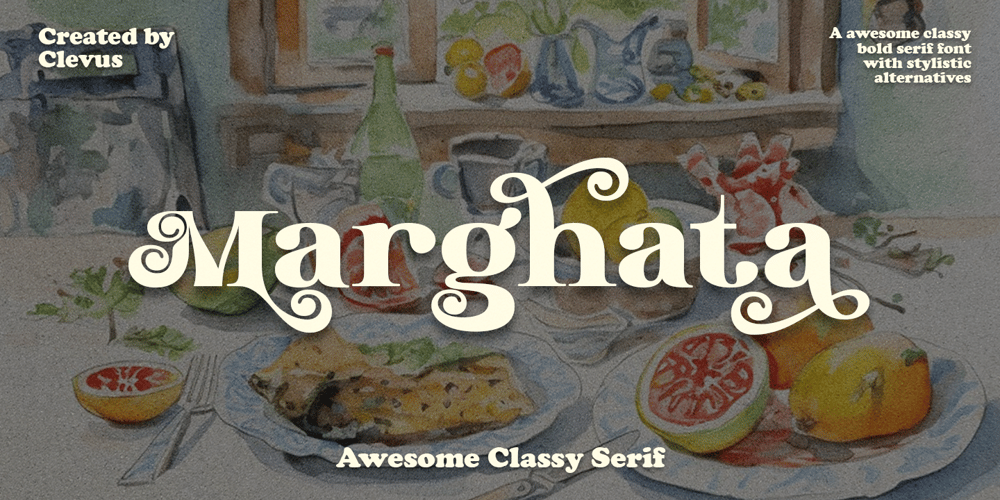
Marghata
Marghata font
Marghata Font Family was designed by Alfinu Zafir and published by Clevus. Marghata contains 1 styles and family package options. Proudly present Marghata Awesome Classy serif.In Marghata Font is a stylish font It has both Classy and retro look.Comes with alternatives and ligatures, helps to create stunning logos, quotes, posts, blog posts. branding projects, magazine imagery, wedding invitations, and much more.Get Marghata font now and let your designs shine!Kindly check over on Behance – https://www.behance.net/clevusHave a Good Day !